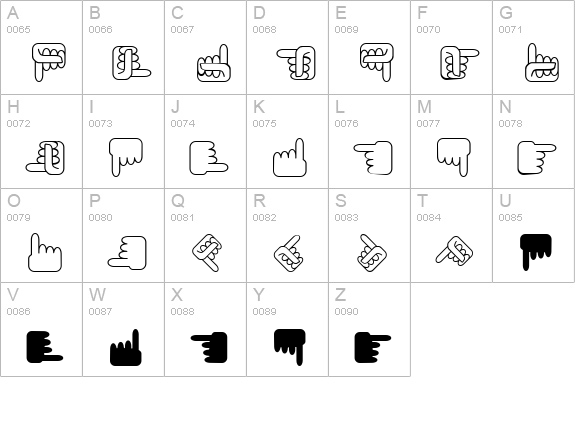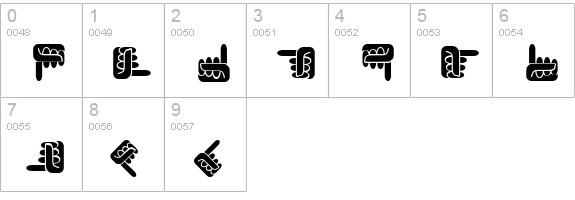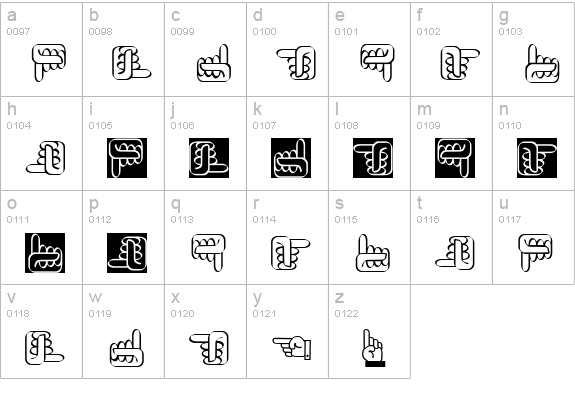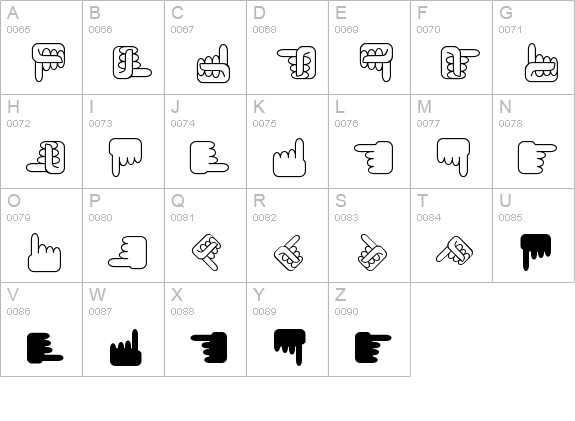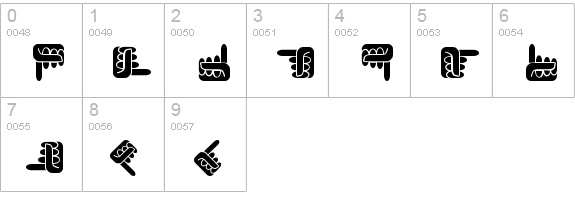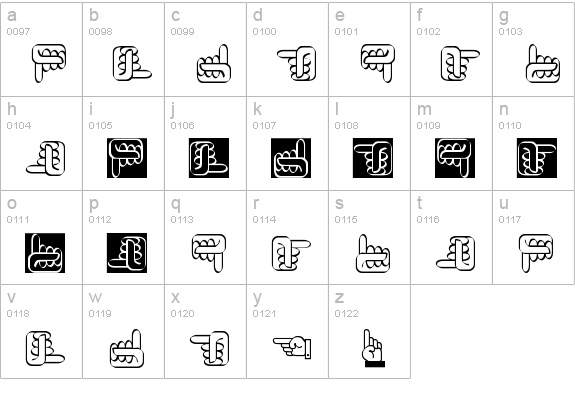
XSimpleHands Font Details
Introducing XSimpleHands font – a charming and versatile typeface that brings a touch of elegance and playfulness to any design project. With its unique hand-drawn style and gentle curves, XSimpleHands exudes a sense of warmth and creativity. This delightful font is perfect for a wide range of applications, from branding and packaging to social media graphics and invitations. Its simplicity and legibility make it a great choice for both digital and print designs. And the best part? XSimpleHands is completely free to download at FontsMarket.com. So go ahead and add this lovely font to your collection today and let your creativity shine!